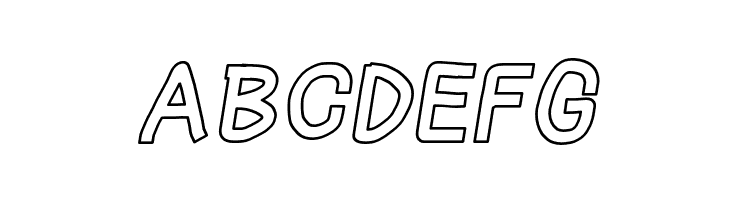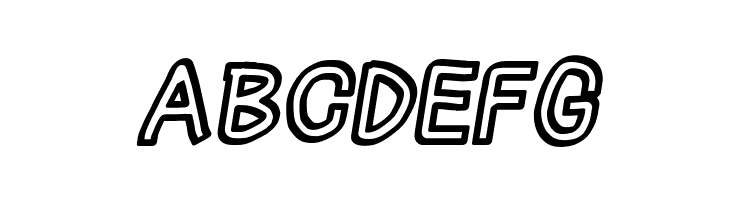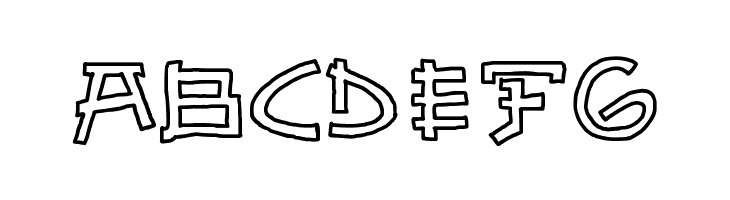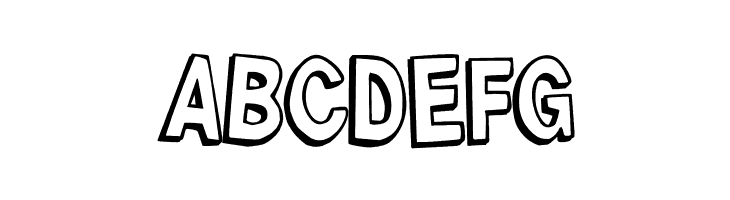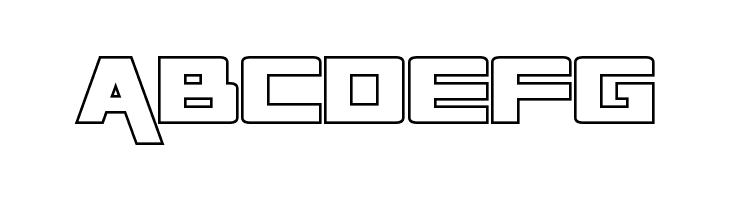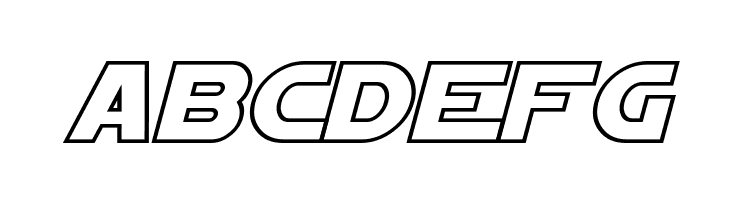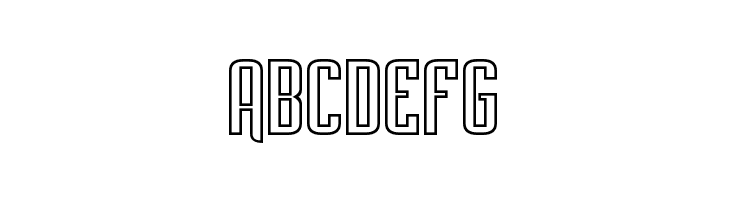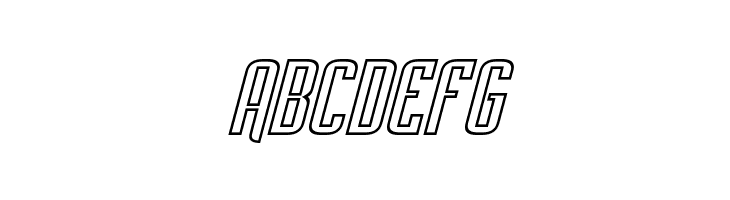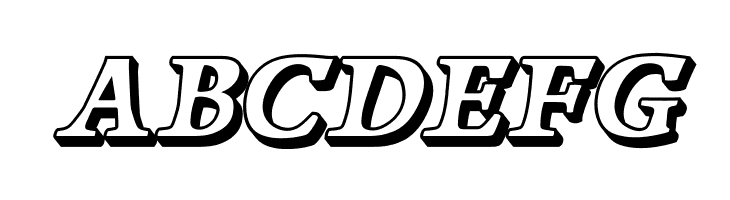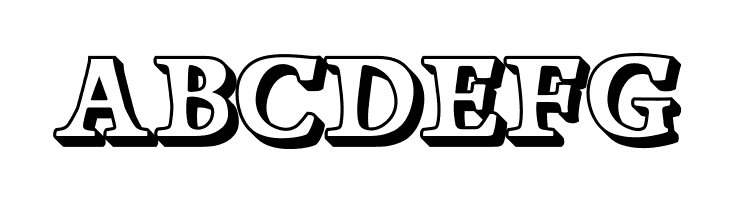
A playful, cartoonish font with bold, outlined characters inspired by Japanese animation.
A playful, outlined decorative font with a hand-drawn, whimsical style.
A playful, hand-drawn font with bold, outlined characters.
A bold, 3D italic font with outlined characters and a playful, dynamic style.
A futuristic, angular font with hollow, outlined characters.
A bold, outlined, italic font with a futuristic and dynamic style.
A bold, italicized font with a hollow interior and outlined characters.
A bold, outlined font with a modern and geometric style.
A bold, outlined, italic font with a modern and dynamic style.
A bold, playful font with textured and outlined styles, perfect for vintage and modern designs.
A bold, collegiate-style font with outlined, block-like characters.
A bold, outlined, and condensed font with a strong visual impact.
A bold, outlined font with a modern and playful aesthetic.
A bold, outlined font with a modern and structured appearance.
A bold, outlined font with a modern, industrial style.
Bold, italicized font with outlined characters for a dynamic and modern look.
A bold, outlined, italic font with a modern, geometric style.
A playful, bubble-like font with outlined characters, perfect for youthful designs.
A futuristic, geometric font with hollow, outlined characters.
A playful, hand-drawn italic font with outlined characters.
A playful, hand-drawn outlined font with a whimsical and casual style.
A playful, bold, and cartoonish font with thick, rounded edges and outlined characters.
A bold, outlined, italic font with a playful and dynamic style.
Outlined comic speech and thought bubbles in diverse shapes.
A bold, outlined font with a playful, three-dimensional style.